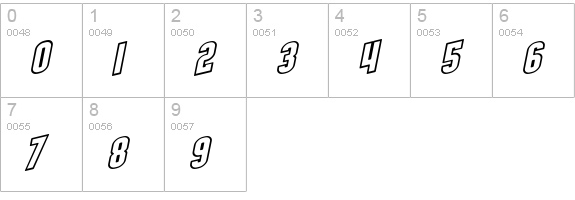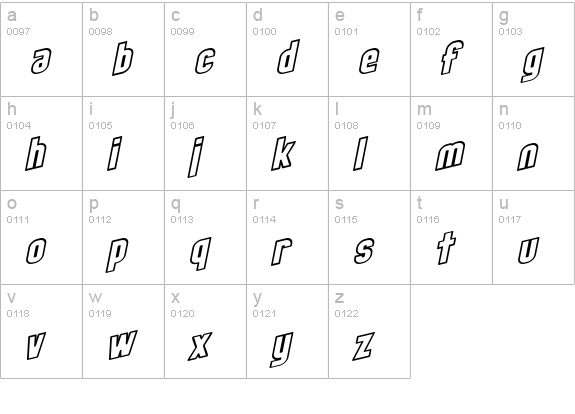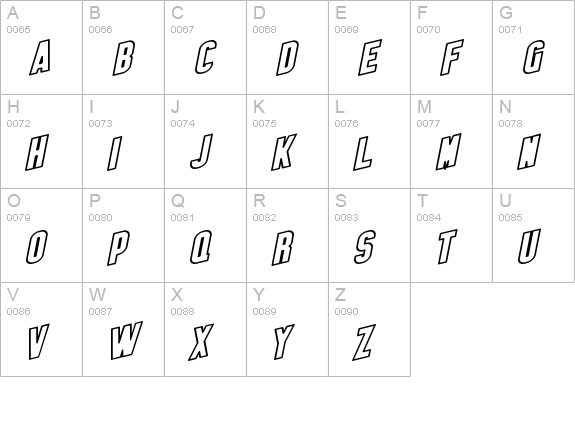
SF Obliquities Outline Bold Font Details
SF Obliquities Outline Bold is a strong, high-contrast variant in the SF typeface family \xE2\x80\x94 well suited to headlines, attention-grabbing titles, and strong calls-to-action.
SF Obliquities Outline Bold is a striking and captivating font that will instantly add a touch of modernity and flair to any design project. With its clean lines and unique oblique angles, this font exudes a sense of dynamism and sophistication. Whether you're designing a logo, crafting a poster, or creating eye-catching headlines, SF Obliquities Outline Bold is the perfect choice to make a bold statement. This font's bold outline adds depth and dimension, making it stand out on any medium. Its sleek and contemporary design makes it ideal for a wide range of applications, from branding and advertising to web design and social media graphics. With its versatility and eye-catching appeal, SF Obliquities Outline Bold is sure to leave a lasting impression on your audience. What's even better is that SF Obliquities Outline Bold is available for free download at FontsMarket.com. This means that you can easily access this amazing font and incorporate it into your projects without having to spend a dime. FontsMarket.com offers a wide range of free fonts for personal and commercial use, making it a valuable resource for designers and creatives. So why wait? Enhance your designs and grab the attention of your audience with SF Obliquities Outline Bold. Download it now for free at FontsMarket.com and let your creativity soar.